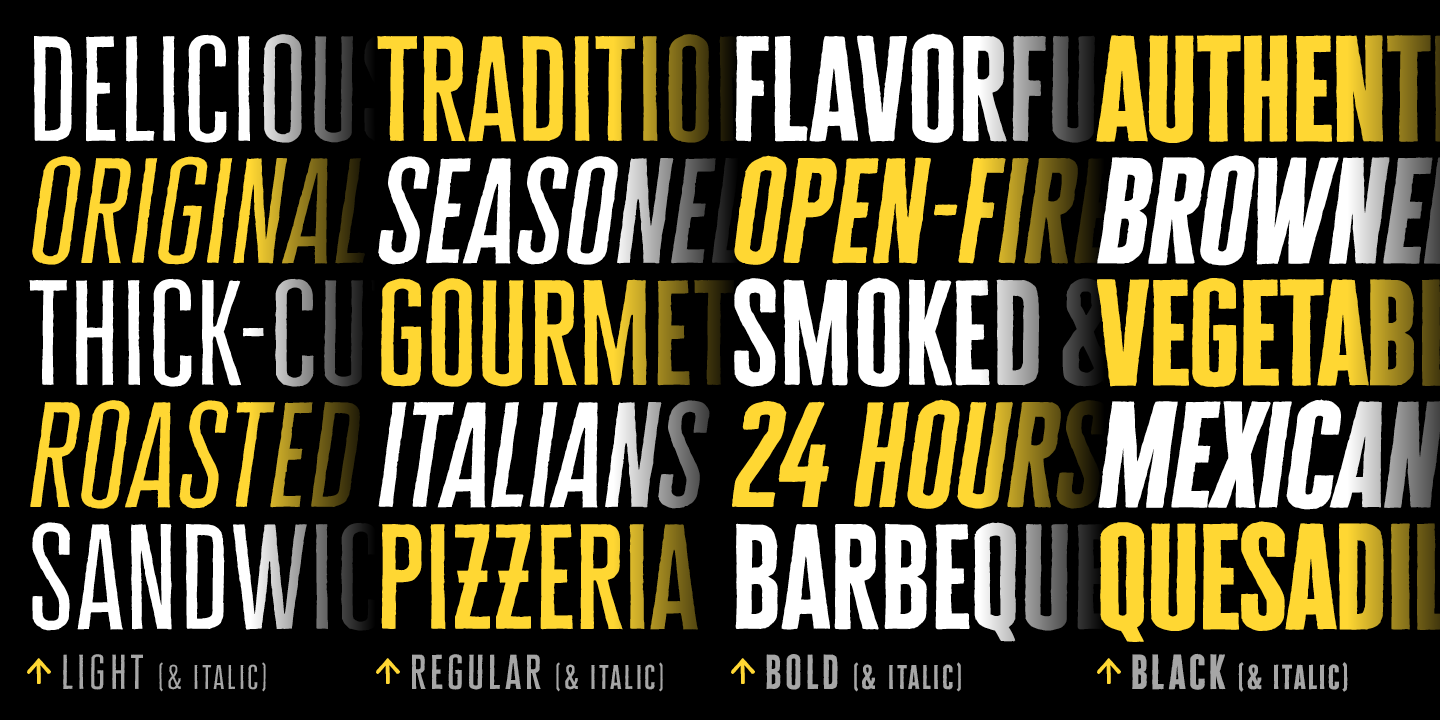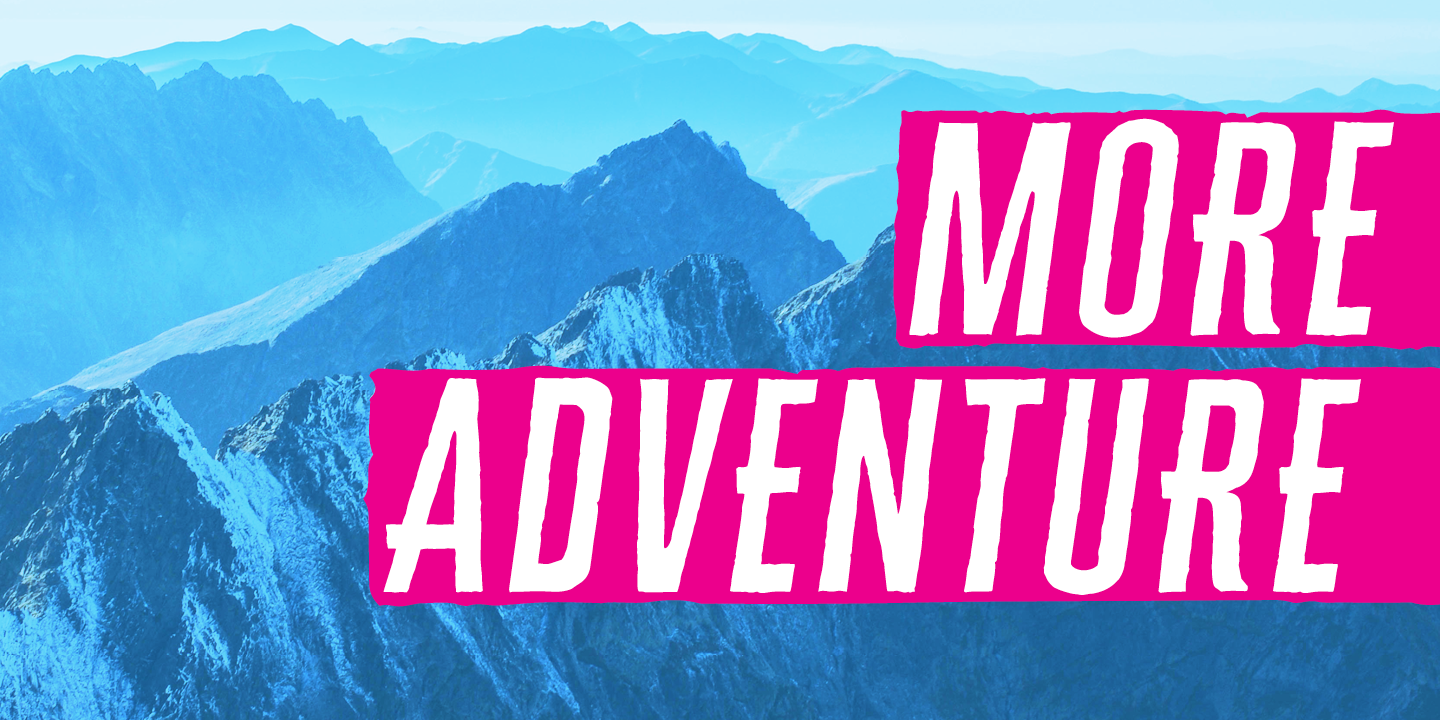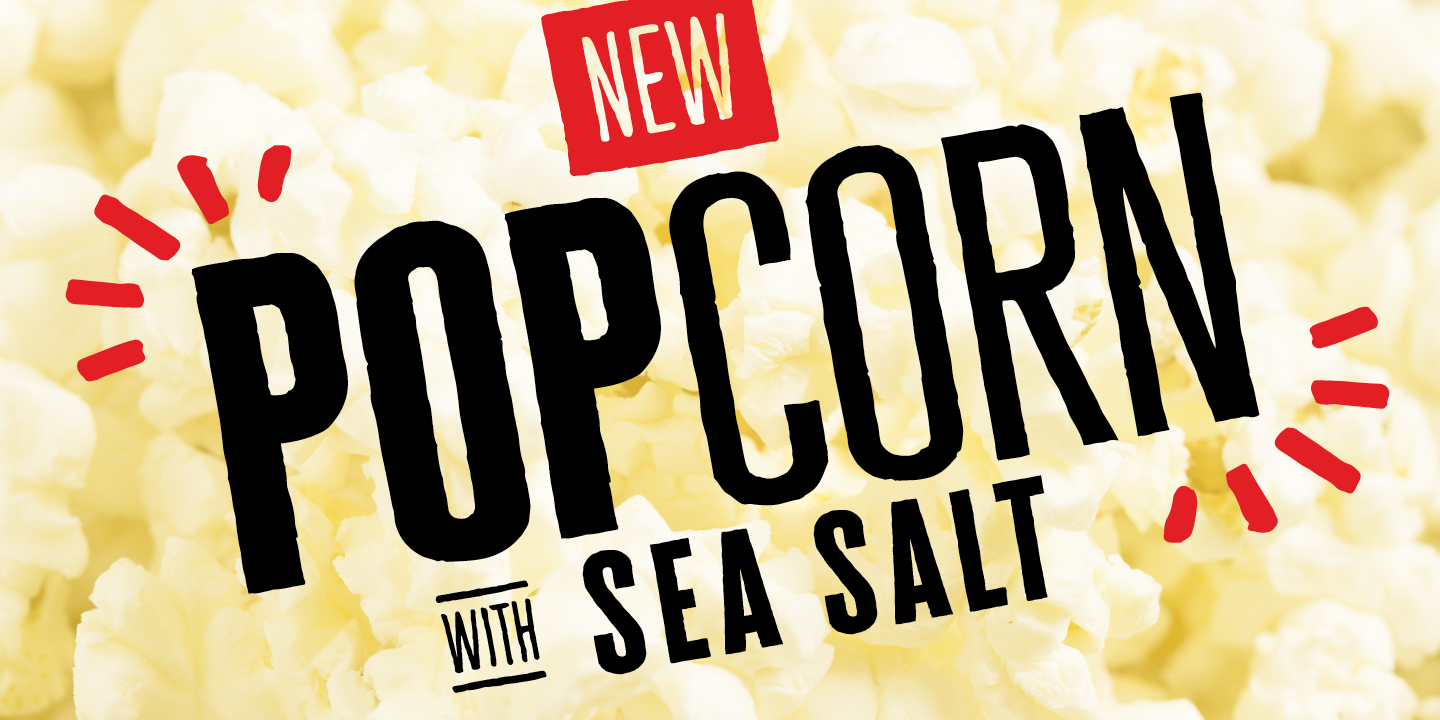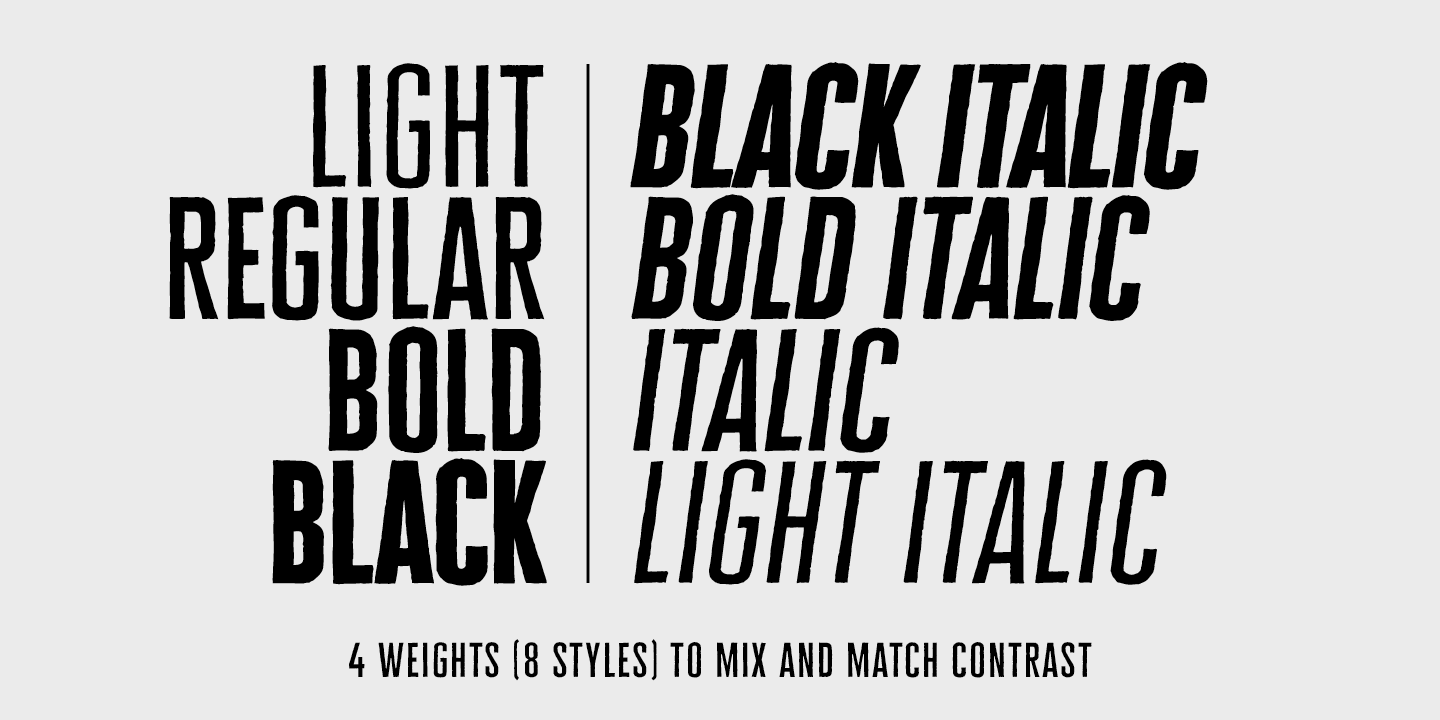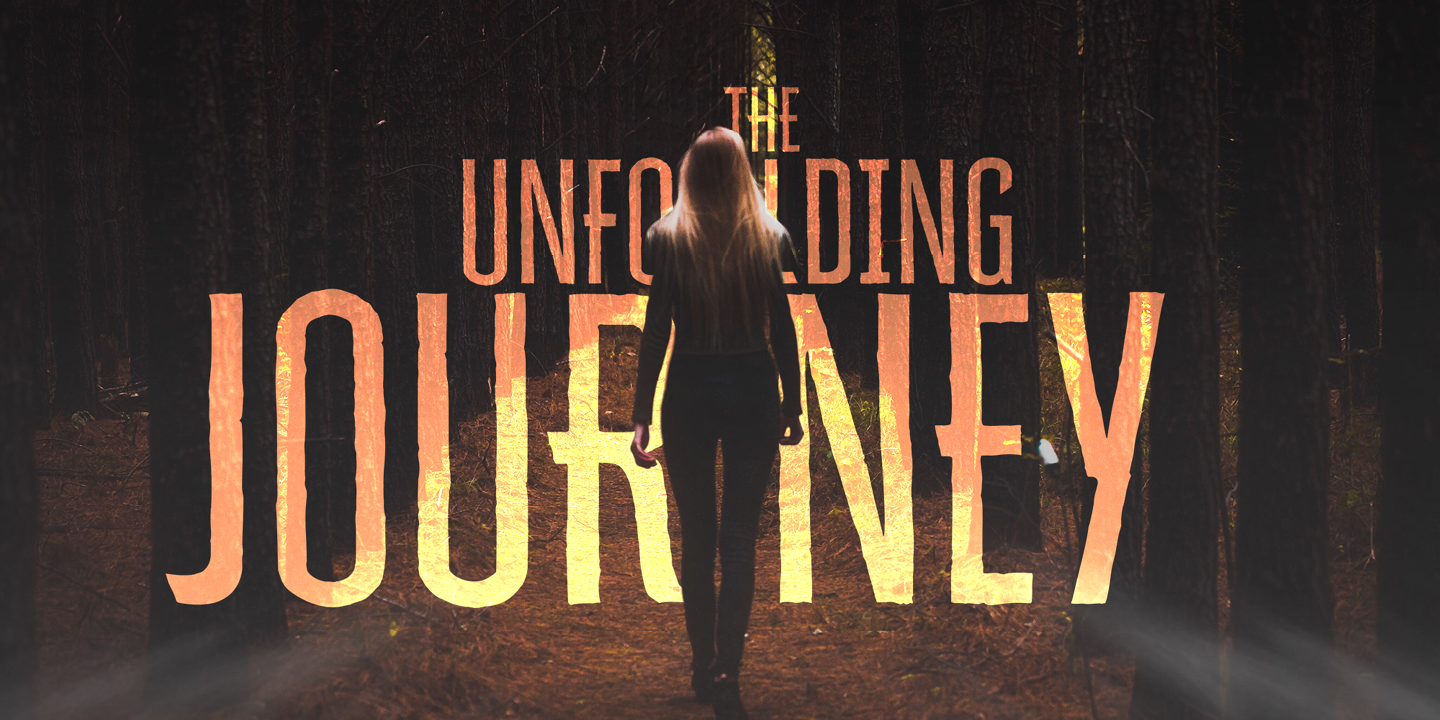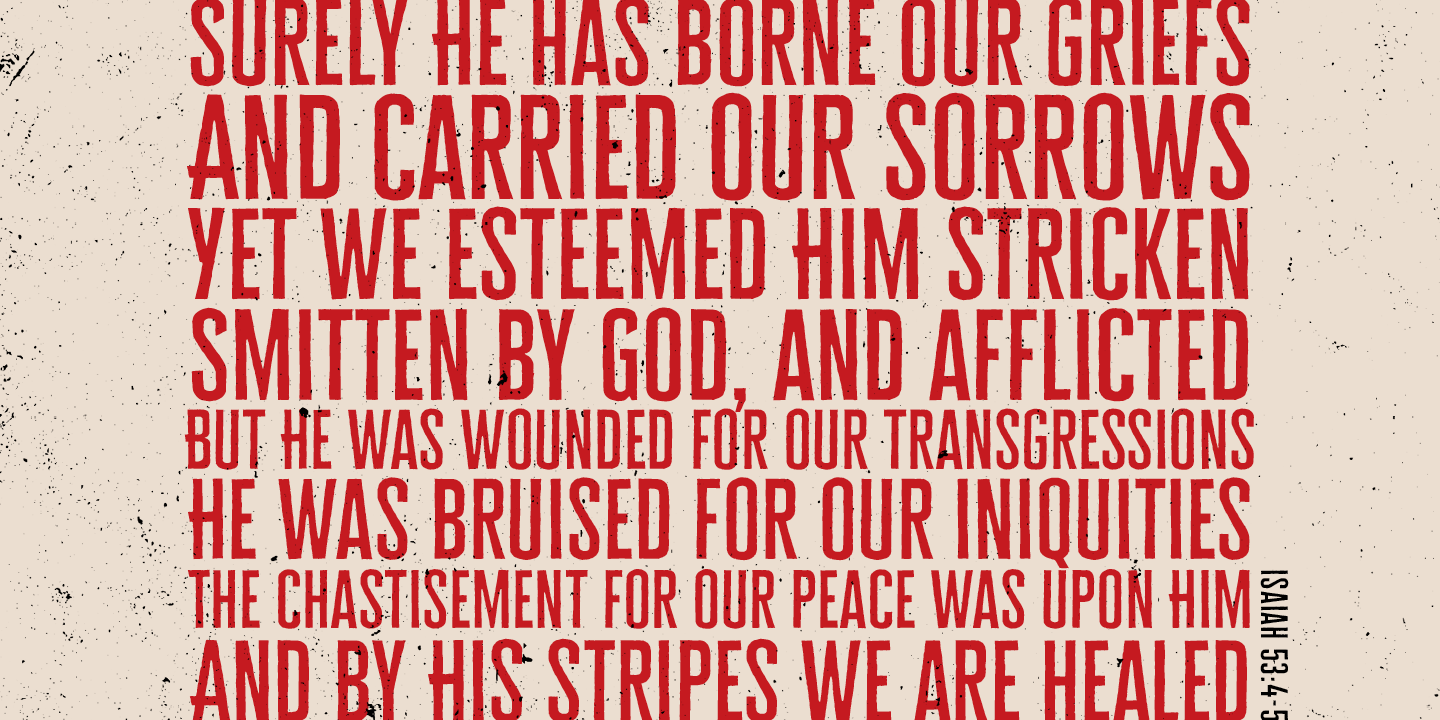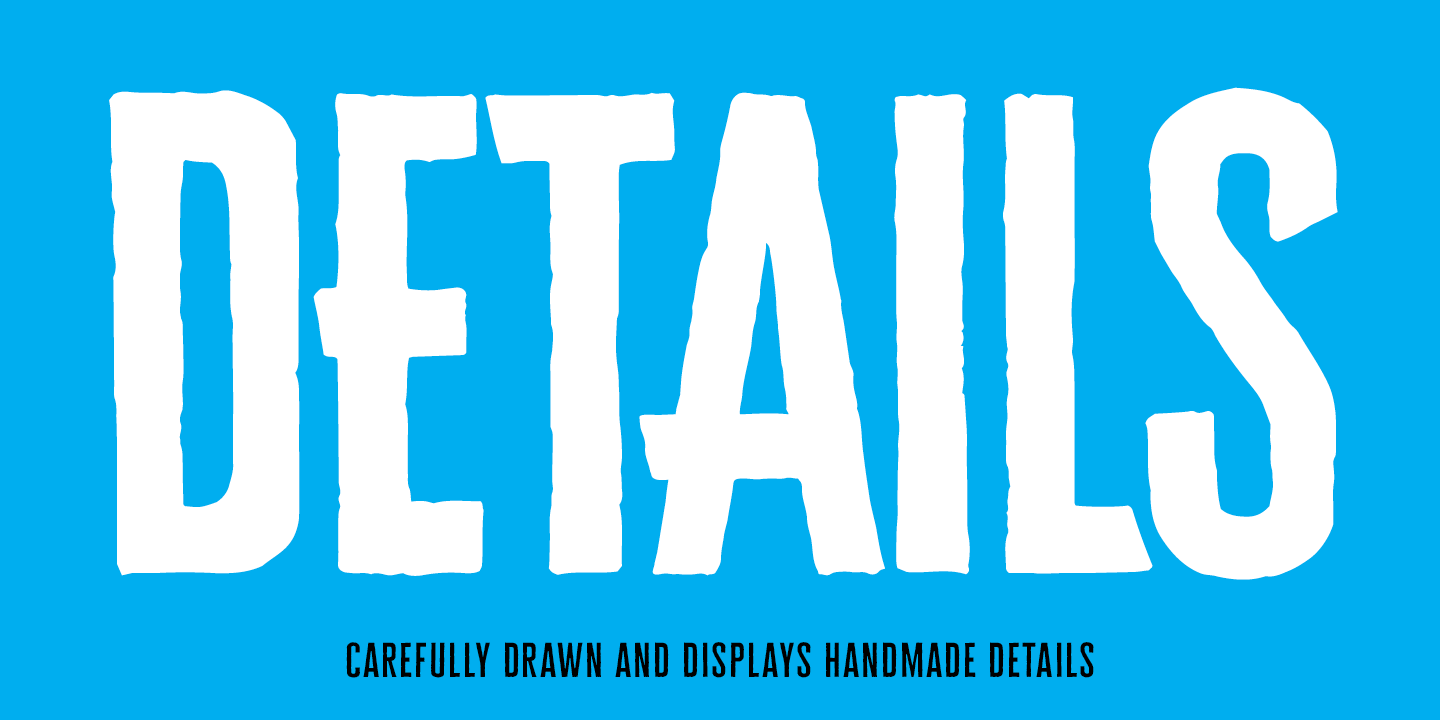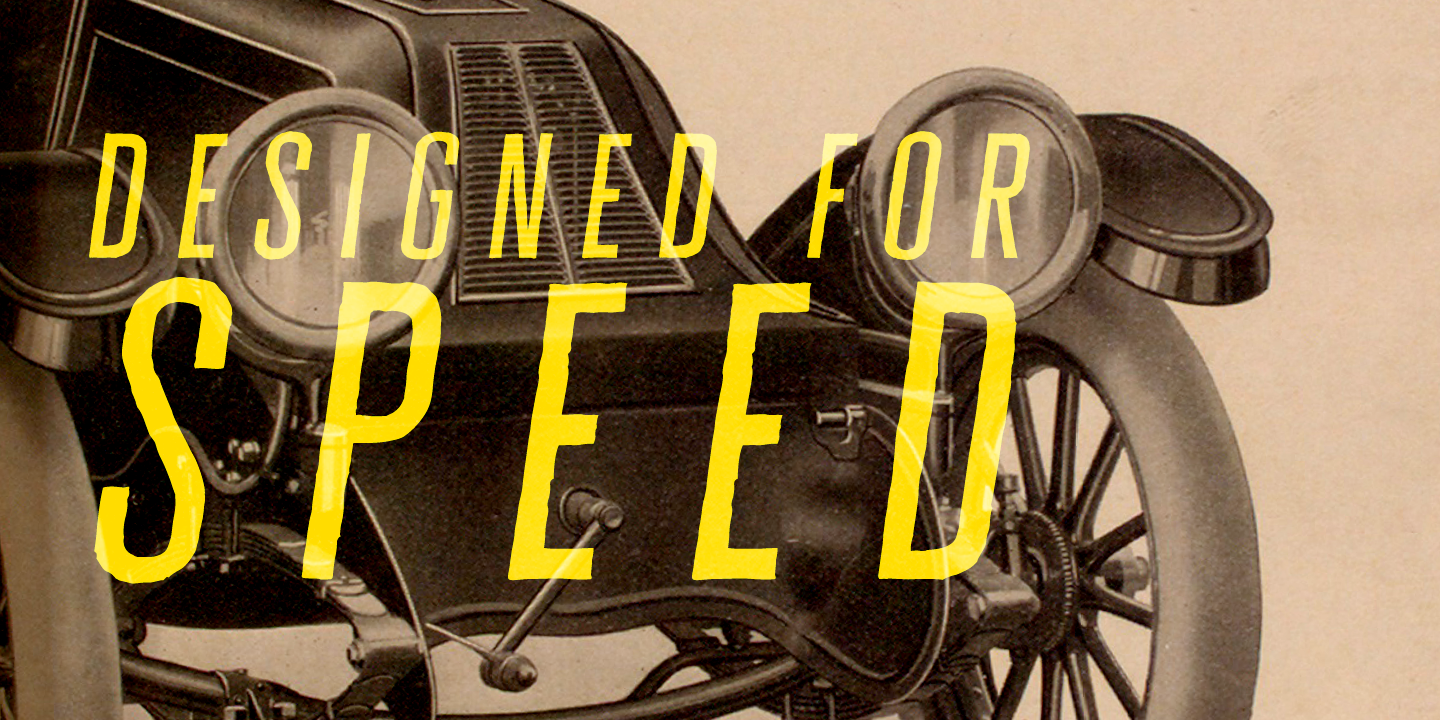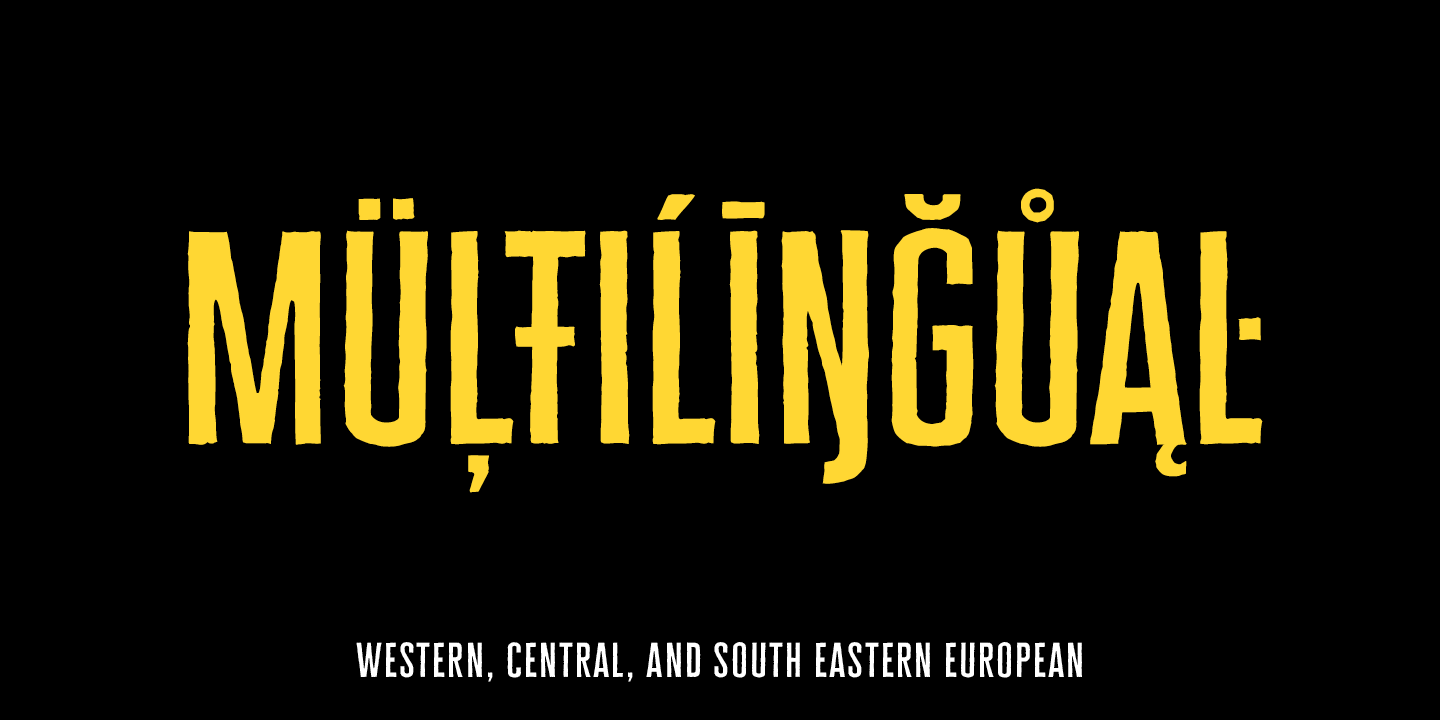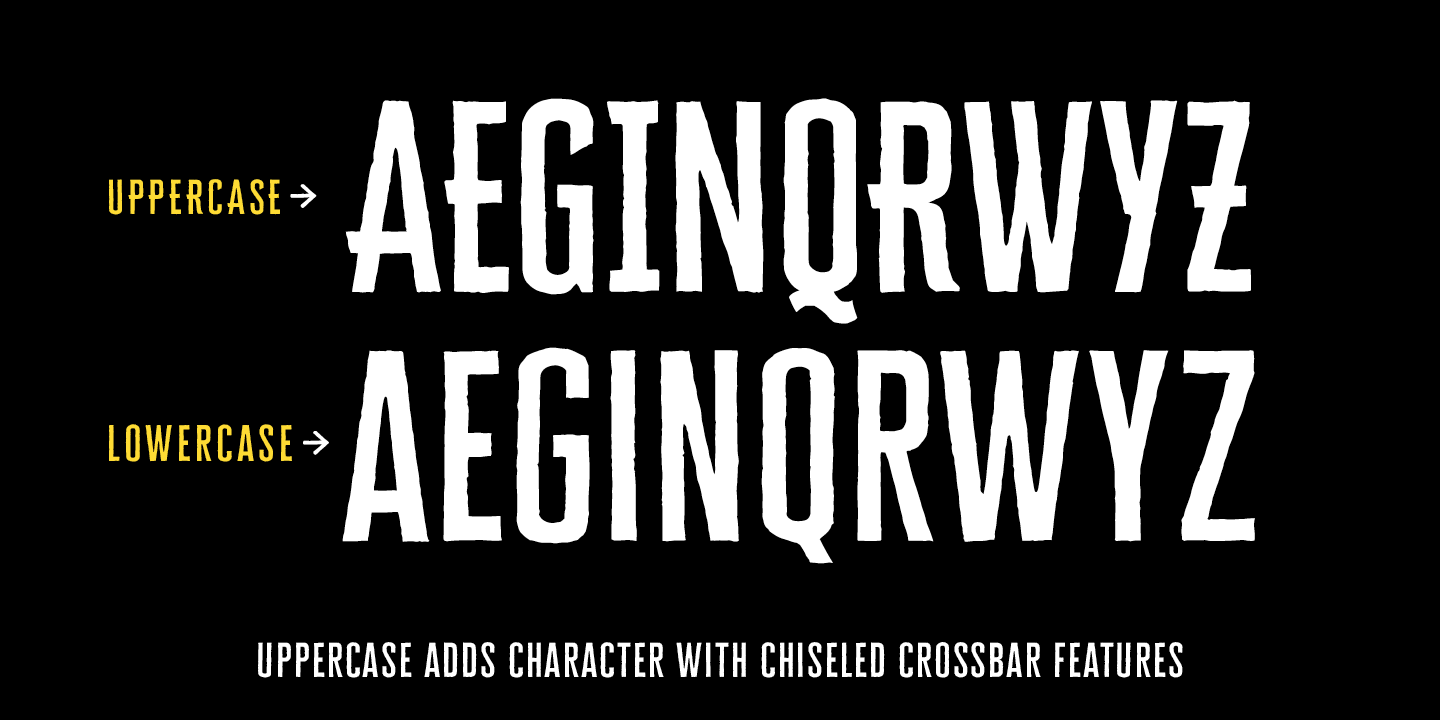
Cheddar Gothic Sans Two is a hand-drawn, multi-weight display font family. An all-caps, sans serif typeface with condensed proportions that works great for a variety of display uses. The uppercase characters add distinction with extended crossbars and chiseled terminals, while the lowercase provides a more classic sans serif appearance. Mix and match the weights for contrast.
Carefully drawn for quality and readability, but still rough enough to exhibit the handmade details. Cheddar Gothic Sans Two is great for display, branding, packaging, advertising, food, sports, titles, and more. Each font file also includes matching catchwords and icons.
All extra catchwords and icons are PUA-encoded for more accessibility in a variety of programs. This font has extensive Latin language support for Western, Central, and South Eastern European.
This font family is an expanded version of the Sans family within the larger Cheddar Gothic font family (which includes Sans, Serif, Slab, and Stencil styles). This Sans Two family has more weights and even broader language support.